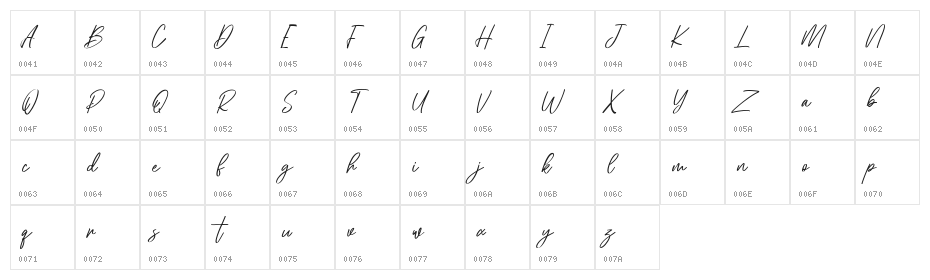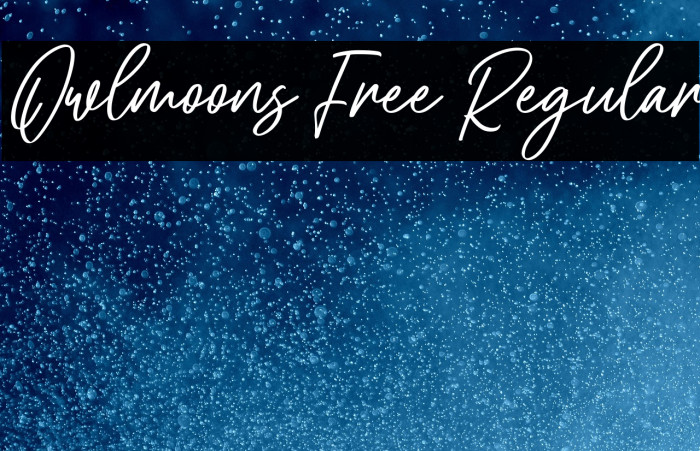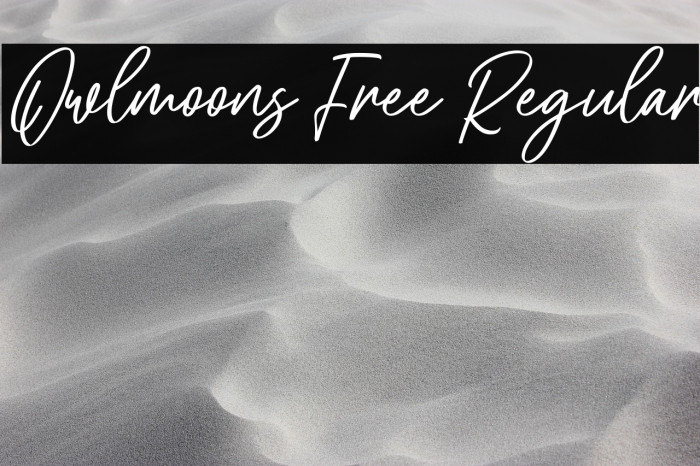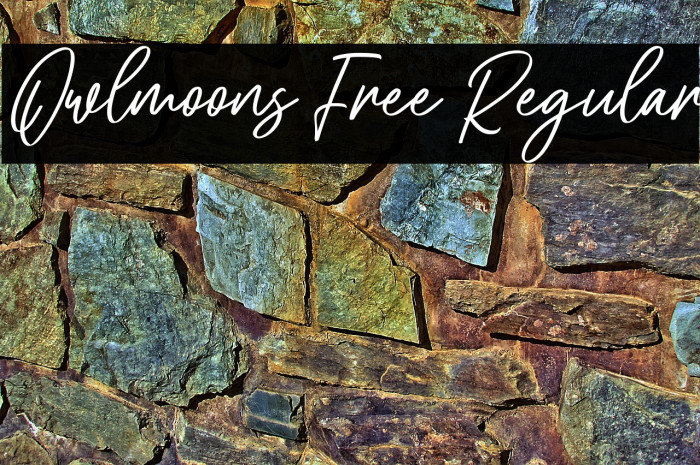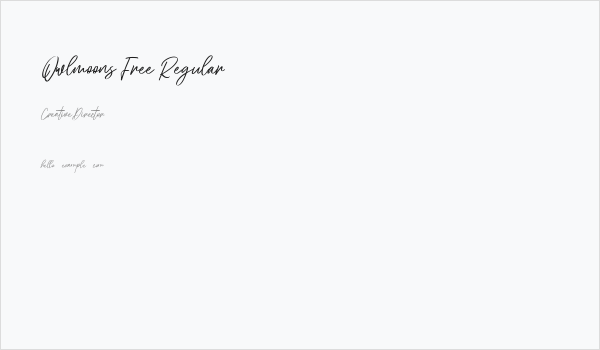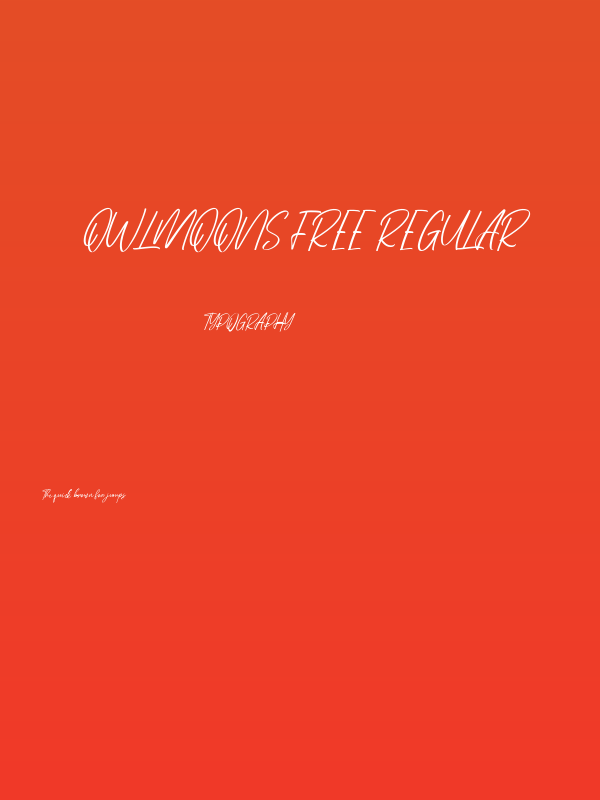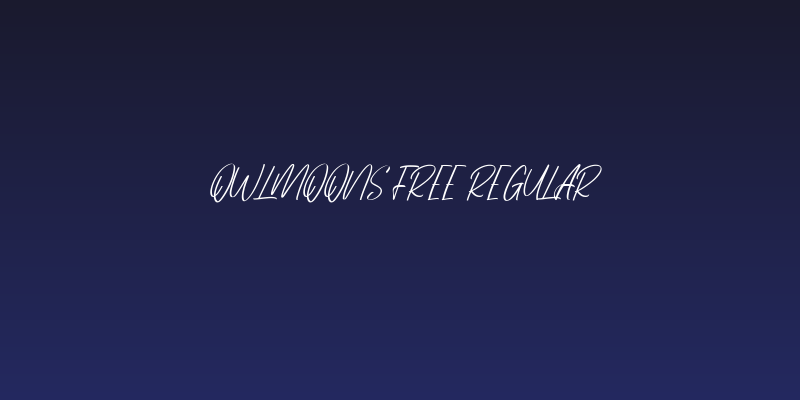
Owlmoons Free Regular Font
Owlmoons Free Regular Description
This font features a flowing, handwritten style that exudes elegance and sophistication. The characters are crafted with smooth, continuous strokes that mimic the fluidity of cursive handwriting. The uppercase and lowercase letters maintain a consistent style, with elongated ascenders and descenders that add a touch of grace. The font's overall appearance is both modern and timeless, making it suitable for a variety of design applications. The spacing between characters is balanced, allowing for easy readability while maintaining its artistic flair. This font is perfect for projects that require a personal, yet polished touch.
| Proposed Projects | Ideal for wedding invitations, personal branding, elegant logos, and greeting cards. |